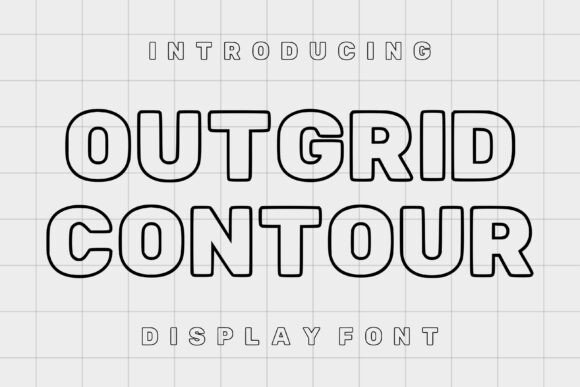
Outgrid Contour: A Display Font for Bold Visual Statements
Understanding the Visual Impact of Outgrid Contour
When you first encounter Outgrid Contour, you immediately notice its defining characteristic: the bold, continuous contour lines that form each letter. This isn't just a standard sans serif font or a typical display font. It's a typeface built on a geometric framework, where the "outline" is as much a part of the design as the character itself. Think of it as a modern interpretation of a serif font's structure, but with the clean, open feel of contemporary typography. The thick, outlined characters create a strong visual anchor, making each letter feel substantial and present on the page or screen.
The personality of Outgrid Contour leans distinctly toward the futuristic and sporty. It carries an energy that's both dynamic and structured. The curves are clean and intentional, avoiding any sense of whimsy or hand-drawn imperfection you might find in a script font or handwritten font. This gives it a professional, almost engineered quality. For designers working on projects that need to convey innovation, speed, or cutting-edge style—think tech startups, athletic brands, or automotive culture—this creative font offers a direct visual shorthand. Its aesthetic is less about traditional elegance and more about confident, forward-moving momentum.
Where Outgrid Contour Truly Shines
The real-world applications for a font like Outgrid Contour are specific and powerful. Its strength lies in high-visibility, short-form text. This makes it a prime candidate for logo design, where it can form the core of a brand's visual mark with its distinctive outline style. The font's inherent structure helps create logos that are memorable and scalable, from a tiny favicon to a massive storefront sign. Similarly, in packaging design, especially for products in the gaming, tech, or athletic apparel spaces, it can make shelf appeal immediate and unmistakable.
For digital content creators, its value is clear. YouTube thumbnails, social media graphics, and website hero sections demand fonts that stop the scroll. Outgrid Contour delivers this impact. Its outlined nature can also be used creatively, allowing for color fills within the letters or layered over images without losing legibility, a practical trick for web design and digital advertising. In the realm of editorial design, it's perfect for pull quotes, chapter headings in modern magazines, or the title spreads of books in the sci-fi or tech genres. It’s a premium font built for these kinds of spotlight moments.
Practical Guidance for Using This Typeface
Choosing any commercial font requires careful consideration, and Outgrid Contour is no exception. First, evaluate your project's tone. Does your brand identity or campaign need to feel sleek, innovative, and energetic? If yes, it's a strong contender. If the project requires a softer, more personal, or traditionally formal voice, you might look toward a different style, perhaps a refined serif font or a classic sans serif font for body text. It's about finding the right tool for the job.
Next, think about font pairing. A display face like Outgrid Contour is rarely used for long paragraphs. Its power is in headlines and titles. For body copy, you'll need a complementary typeface that offers high readability at smaller sizes. A clean, neutral sans serif often works well, creating a visual hierarchy where the bold Outgrid Contour headline grabs attention, and the paired body font delivers the detailed information clearly. Always test your pairings in context—mock up a social media post or a product label to see how the fonts interact in real use.
Finally, understand what you're getting. Review the font's full character set, stylistic alternates, and any included weights or styles. Does it have the punctuation and language support you need? Confirm the licensing aligns with your intended use, whether for personal projects or commercial client work. Treating Outgrid Contour not just as a single asset but as a part of your broader toolkit of design assets will help you use it most effectively, ensuring it enhances your project's professionalism and helps you achieve the precise visual impact you're aiming for.